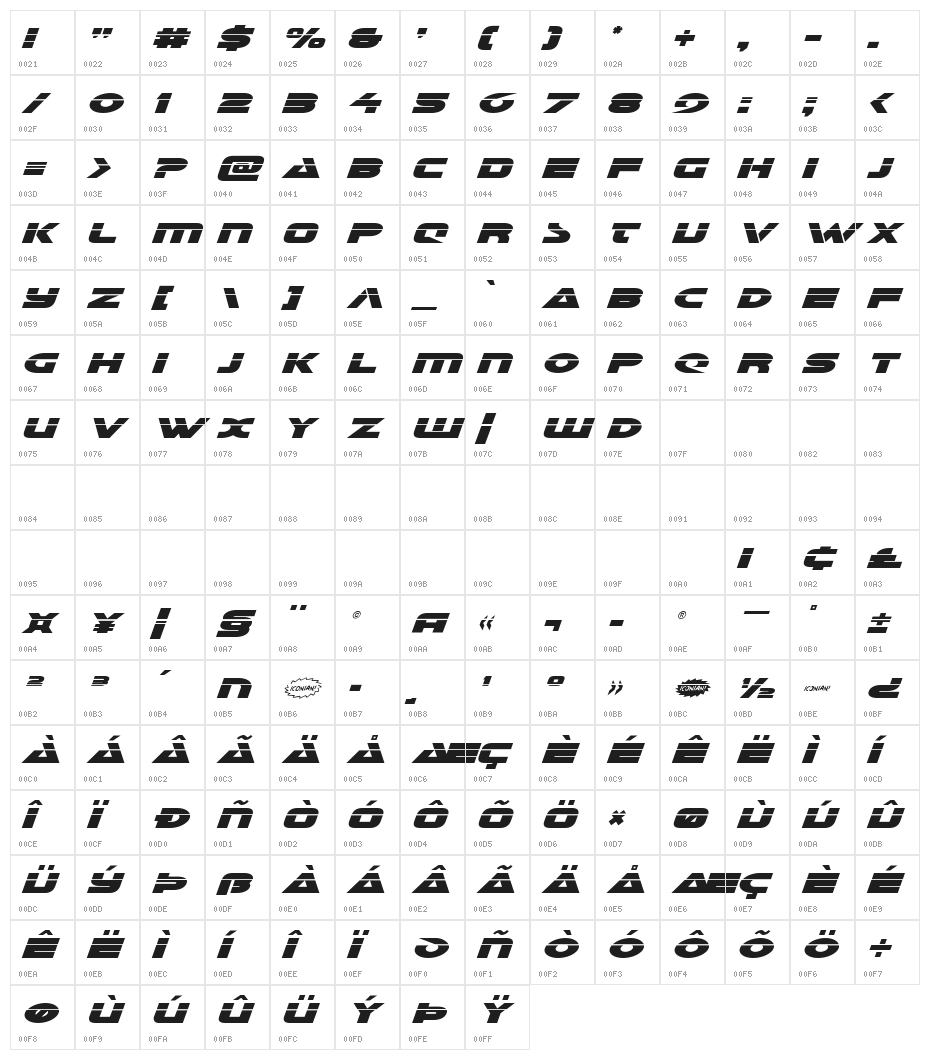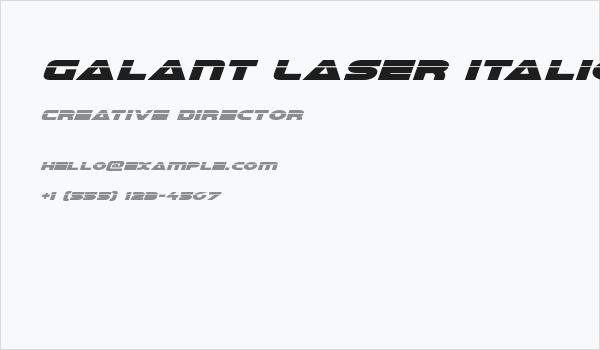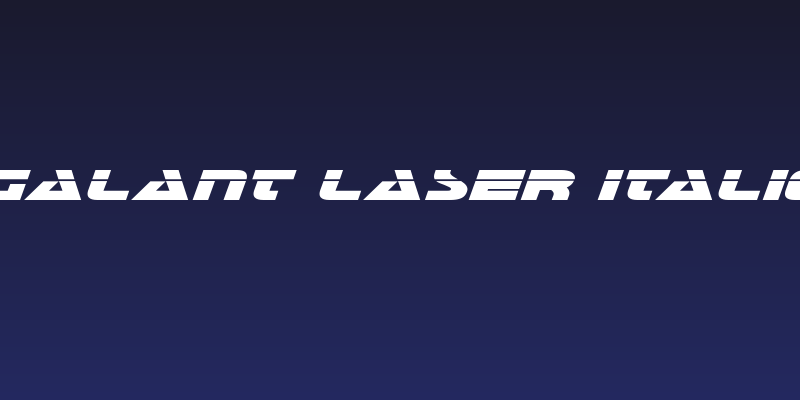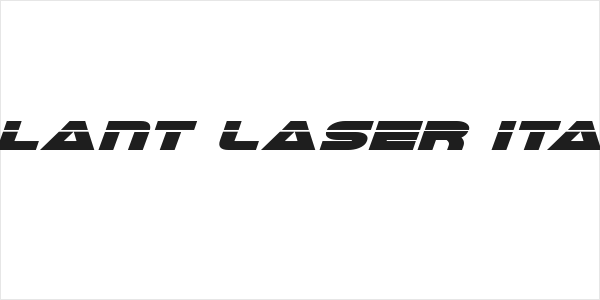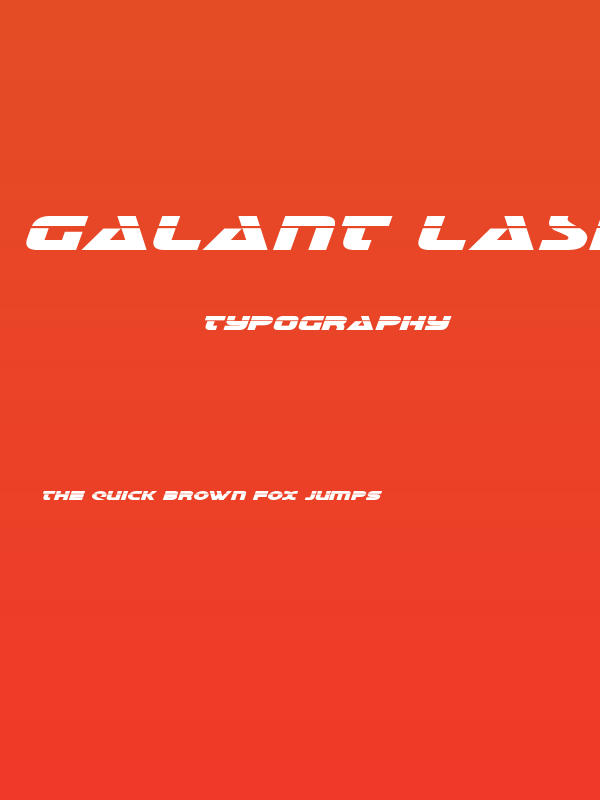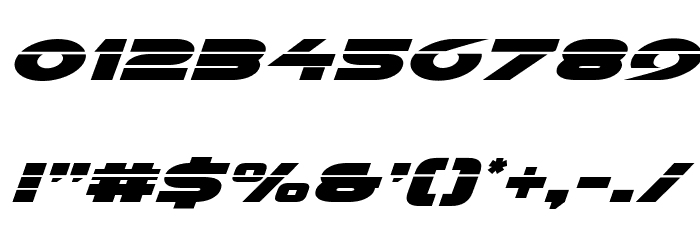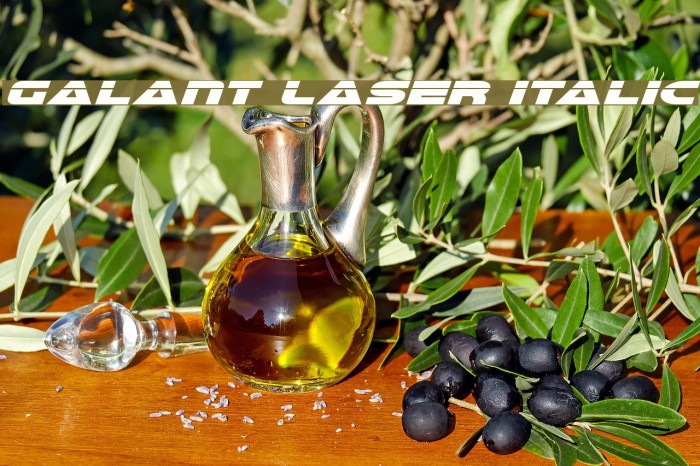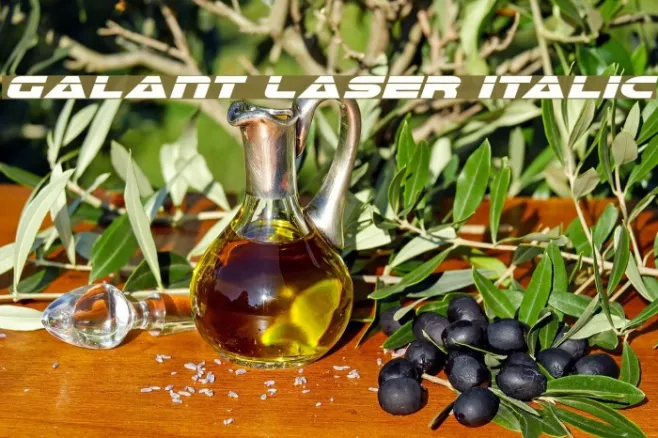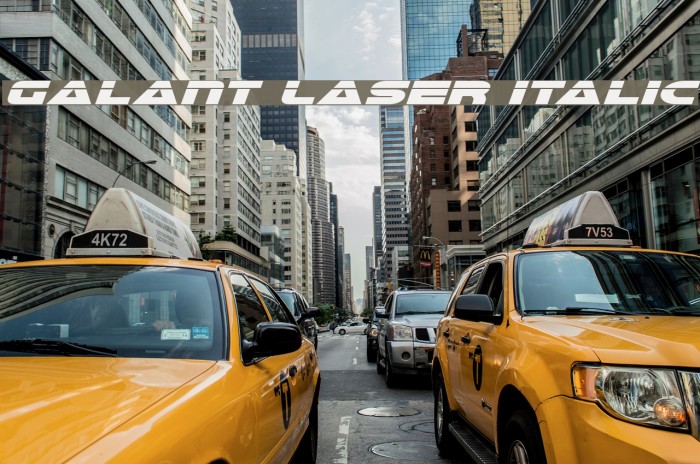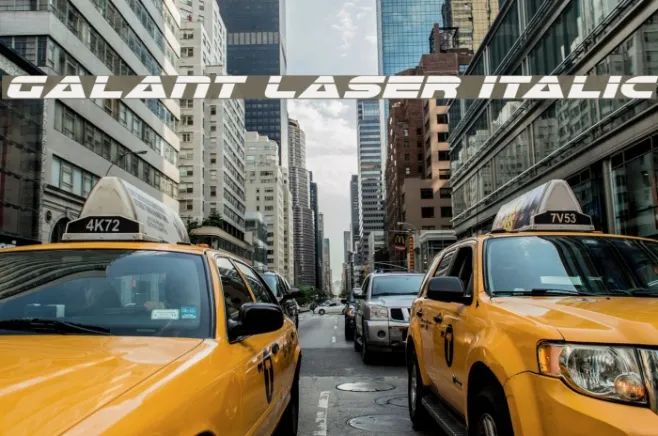
Galant Laser Italic Font
Galant Laser Italic Description
This font features a futuristic and dynamic design, characterized by its sharp angles and italicized slant. The bold strokes and geometric shapes give it a strong presence, making it ideal for attention-grabbing headlines. The uppercase and lowercase letters maintain a consistent style, with a unique cut-out effect that adds to its modern appeal. The numerals and special characters follow the same design principles, ensuring uniformity across all glyphs. Its distinct style is perfect for projects that require a bold and modern aesthetic.
| Proposed Projects | Ideal for sci-fi themed projects, technology branding, video game titles, and modern posters. |